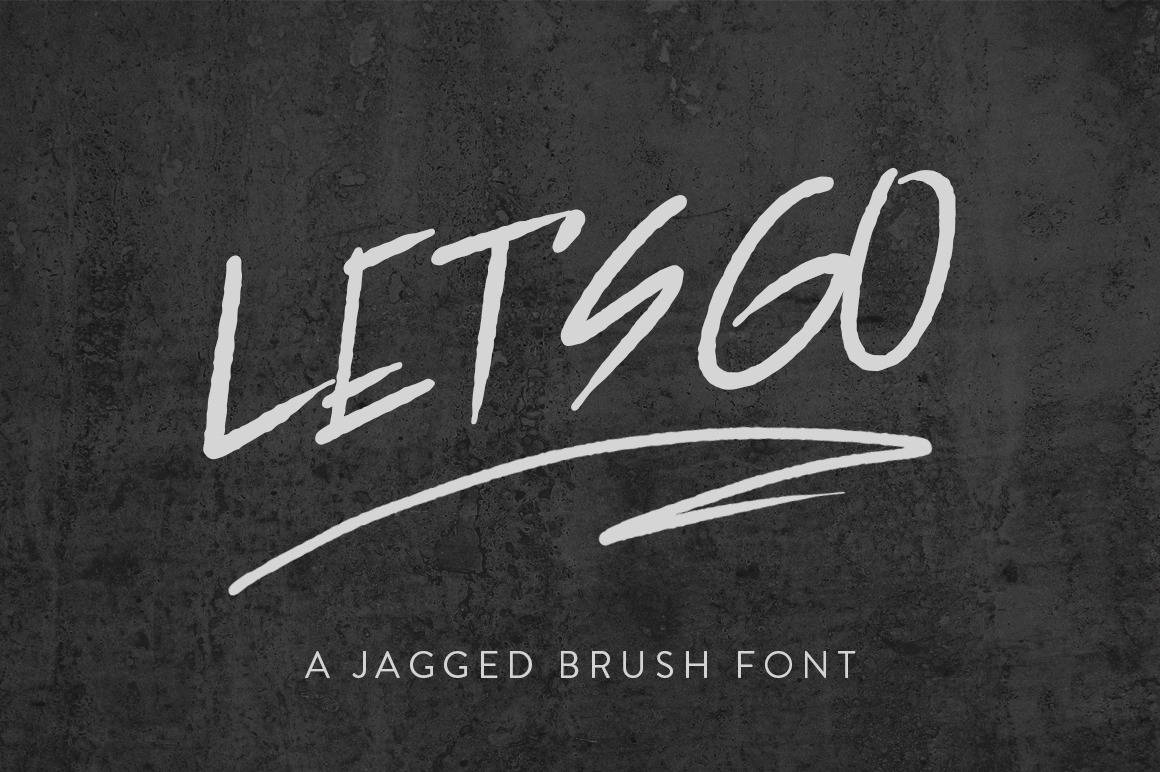
Let's Go Jagged Brush Font
I wanted to create a font that have a feeling of a custom hand-lettered, rather than something that is very generic.
Let's Go is an edgy display font with a brush lettering feel for your designs. This jagged brush font is great for prints, merchandise, websites, headers, logos and attention-grabbing words and more.
Let's Go font (regular) is in uppercase as the main letters and the lowercase as an alternate for your designs. Also included are numerals, basic punctuation and currency glyphs.